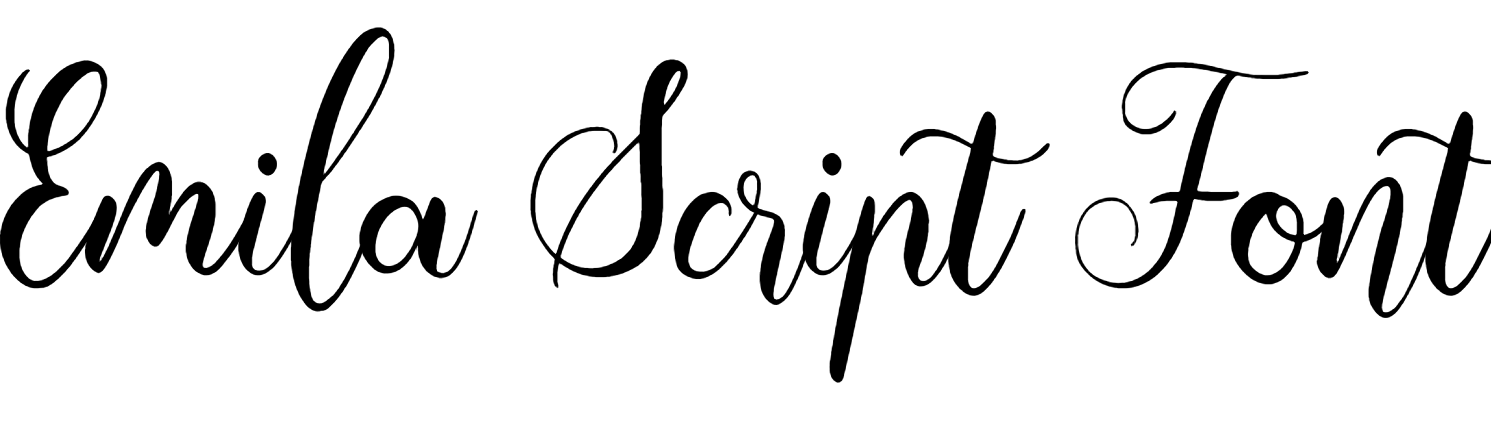
Emila Script
Emila Script is a calligraphy font designed by Paily Studio (2021). Its flowing, pen-made letters give names and short phrases a personal, polished look. You can download it for free and test it with your own words in the preview above.
- Extra characters: 221 copy-and-paste alternates (Private Use Area)
What You Can Type With Emila Script
You get every letter from A to Z in both cases and all the numbers from 0 to 9, which means Emila Script can handle full sentences, dates and prices. Everyday marks like &, !, ? and @ are there too. Thanks to its accented letters, it also works for Spanish, French, German, Portuguese and Italian, not just English.
How to Use the Alternate Letters in Emila Script
Its 221 alternates are stored as separate characters, so you can copy them from Character Map on Windows or Font Book on a Mac and paste them anywhere, including Cricut Design Space and Canva. Its ligatures switch on by themselves in most design apps: certain letter pairs join into one specially drawn shape.
Where Emila Script Works Best
Emila Script is a natural fit for wedding invitations, certificates and elegant quotes. Its lowercase letters are small compared to the capitals, so set it a size or two bigger than usual. The file has no kerning data, so in logos and big titles check pairs like AV, To and Wa and tighten the spacing by hand. Script fonts read best in short bursts, so keep it to names, titles and one-line quotes. Skip all caps: script capitals are drawn to start a word, not to fill one.
How do I get the alternate letters and swashes in Emila Script?
The 221 alternates are separate characters, so copy them from Character Map on Windows or Font Book on a Mac and paste them into your text. This works in Cricut Design Space and Canva too.
Does Emila Script support accented letters?
Yes. Emila Script includes the accented letters needed for Spanish, French, German, Portuguese and Italian, so it works for more than just English.